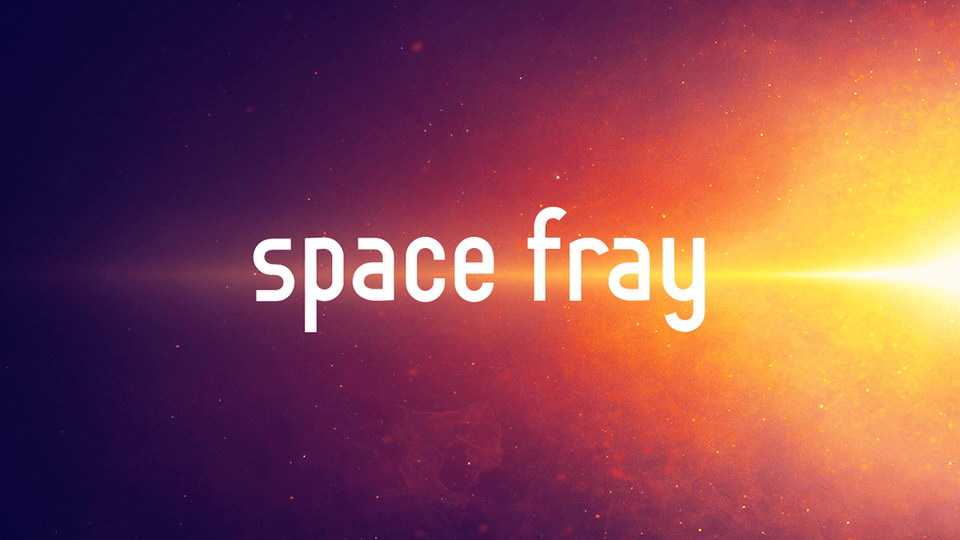
Download Space Fray font, a futuristic typeface. Inspired by broad nib calligraphy, Space Fray stays on the edge between mechanical and humanistic shapes with a futuristic touch.